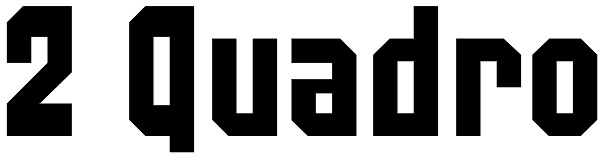
2 Quadro
This big family summarizes and develops the tradition of boldface squared-off 45° shear sanserifs. Known from the middle of 19th century and actively used in different times (1920s, 1970s) is still usable now, thanks to its brutal expression...